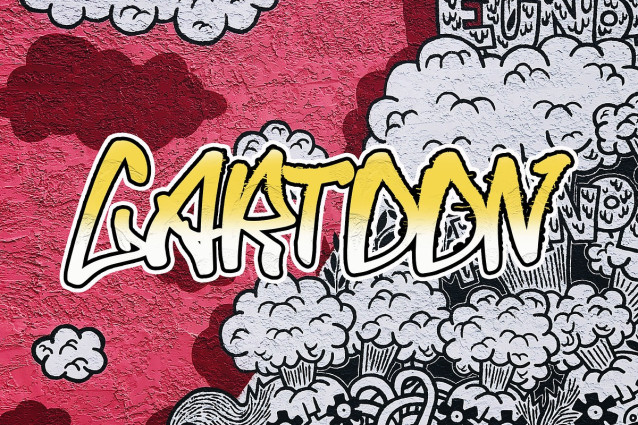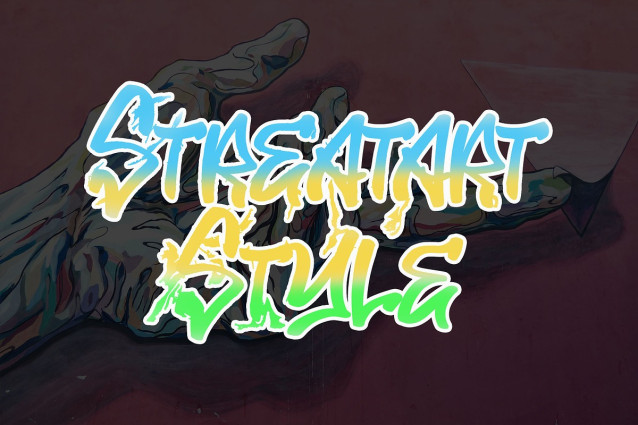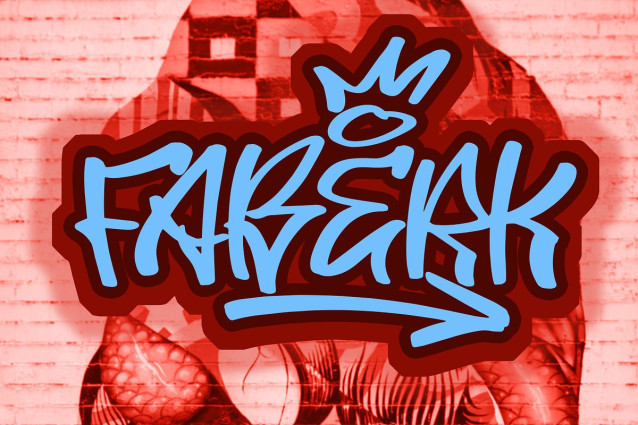
Faberk Graffiti Font
Faberk Graffiti Font is a bold graffiti font with a dynamic handbrush style, perfect for adding an urban, edgy feel to your designs. Its unique character shapes bring a raw and energetic vibe, making it ideal for street art-inspired logos, branding, apparel, and more. FABERK enhances the visual impact of your projects with its distinctive and creative lettering.